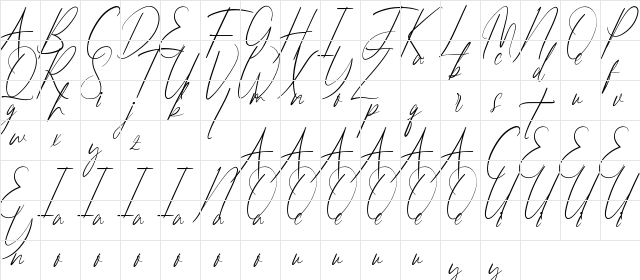
Hostiline Demo Regular Free Font
Hostiline Demo Regular
Foundry: NihStudio
Designer: Widiyanti & Suci Anita
Design Context for Hostiline Demo
Hostiline Demo is a composed and adaptable typeface that performs quietly and consistently across a wide range of design contexts.